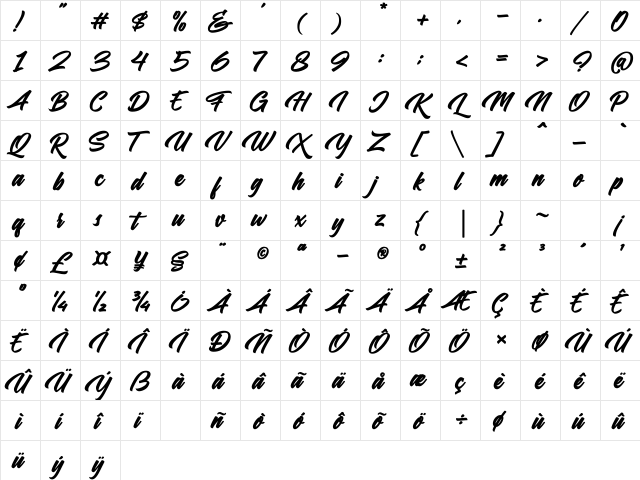
Samble Tracie Bold Bold Font Preview
Samble Tracie Bold Bold
Samble Tracie Bold Bold Font Details
Design Context for Samble Tracie Bold Typeface
Samble Tracie Bold is a composed and adaptable typeface that performs quietly and consistently across a wide range of design contexts. Its bold stroke weight gives it real presence on the page.